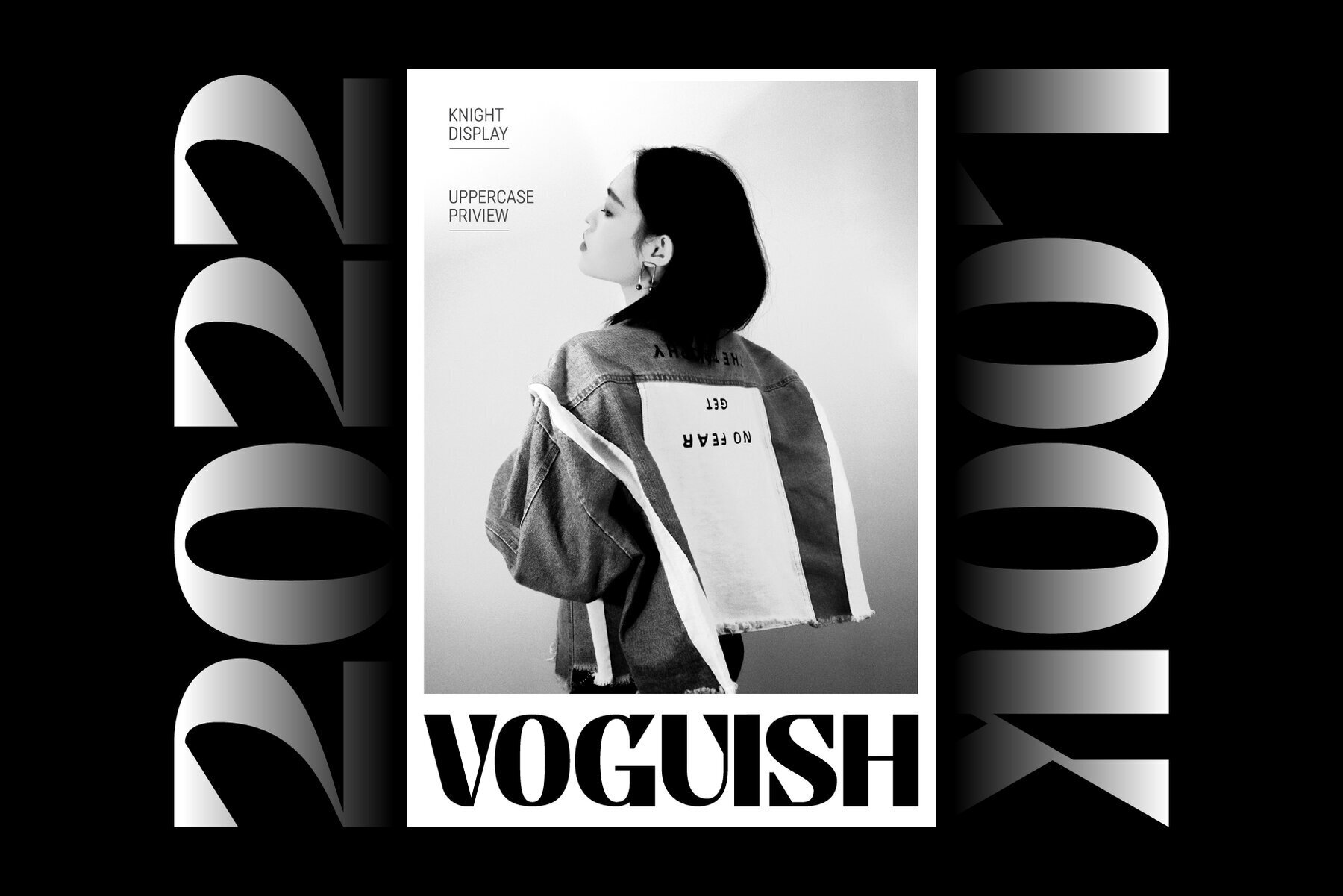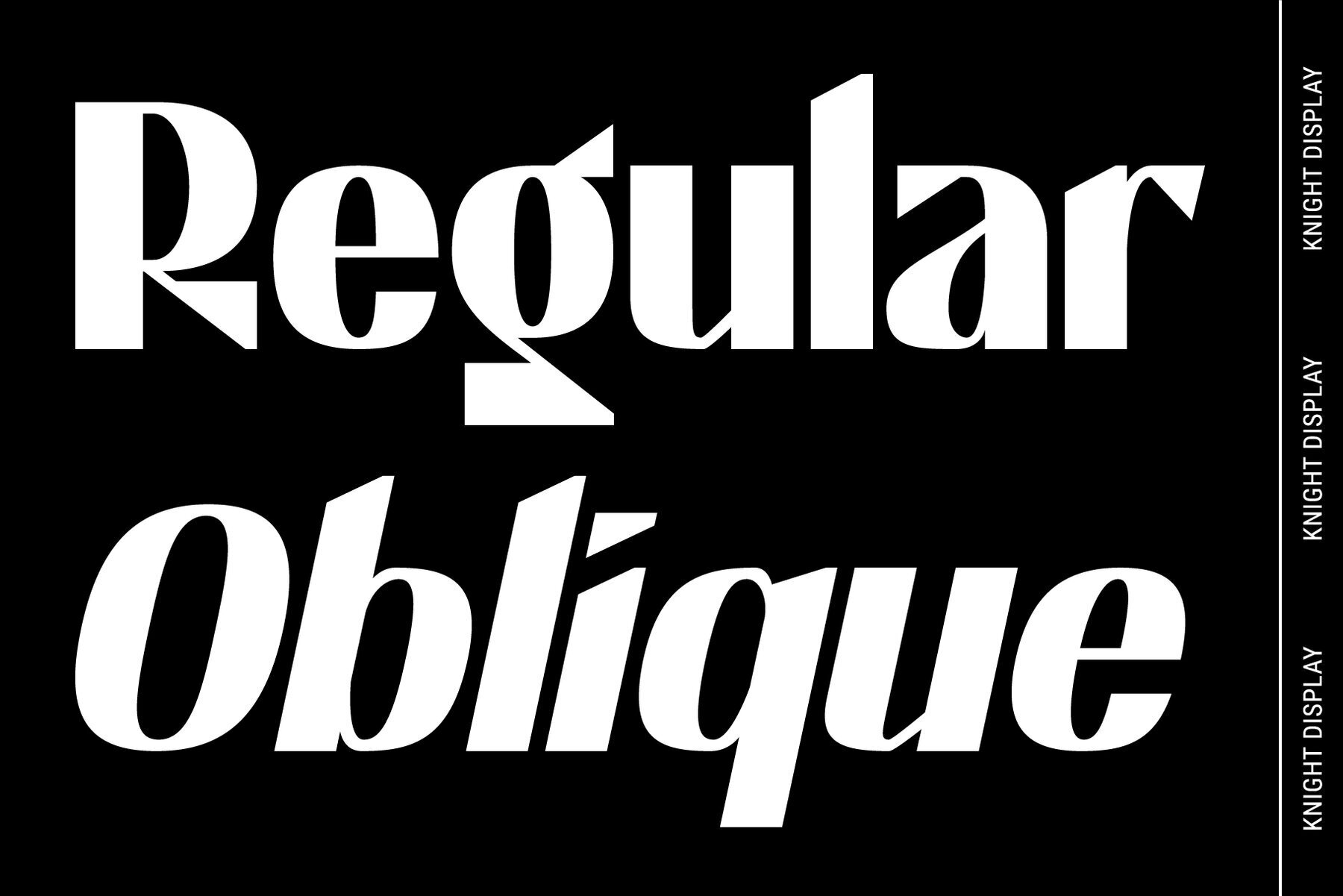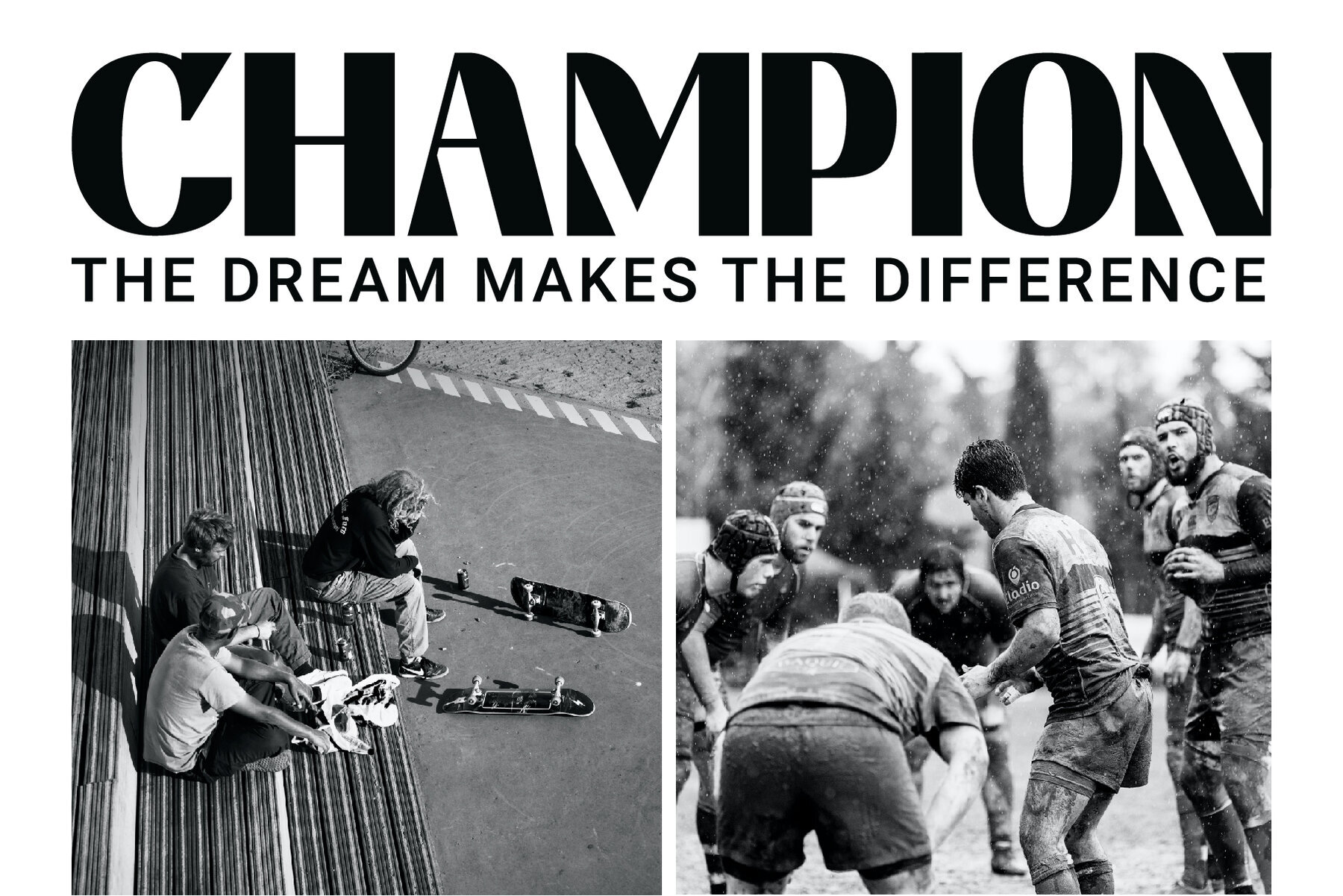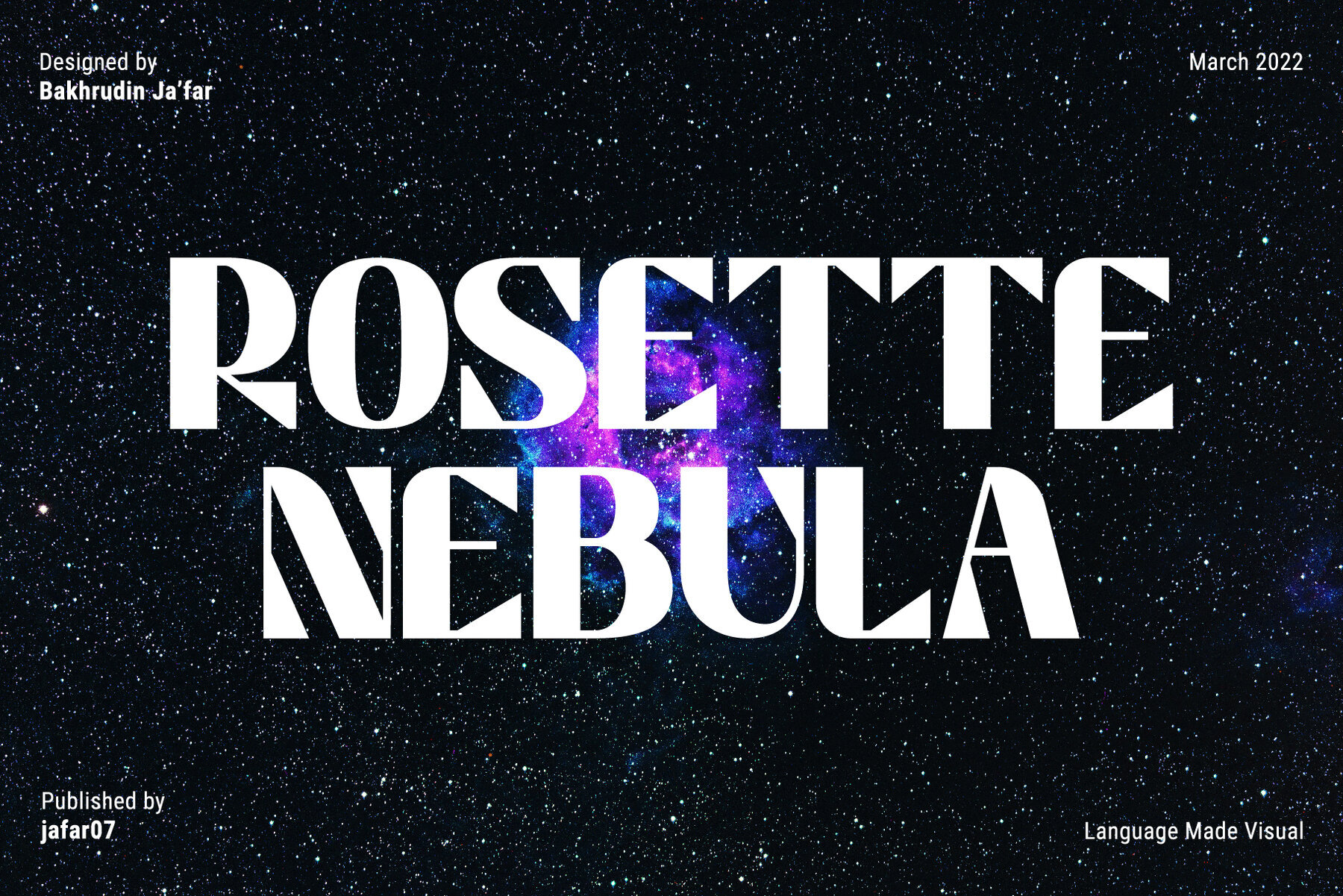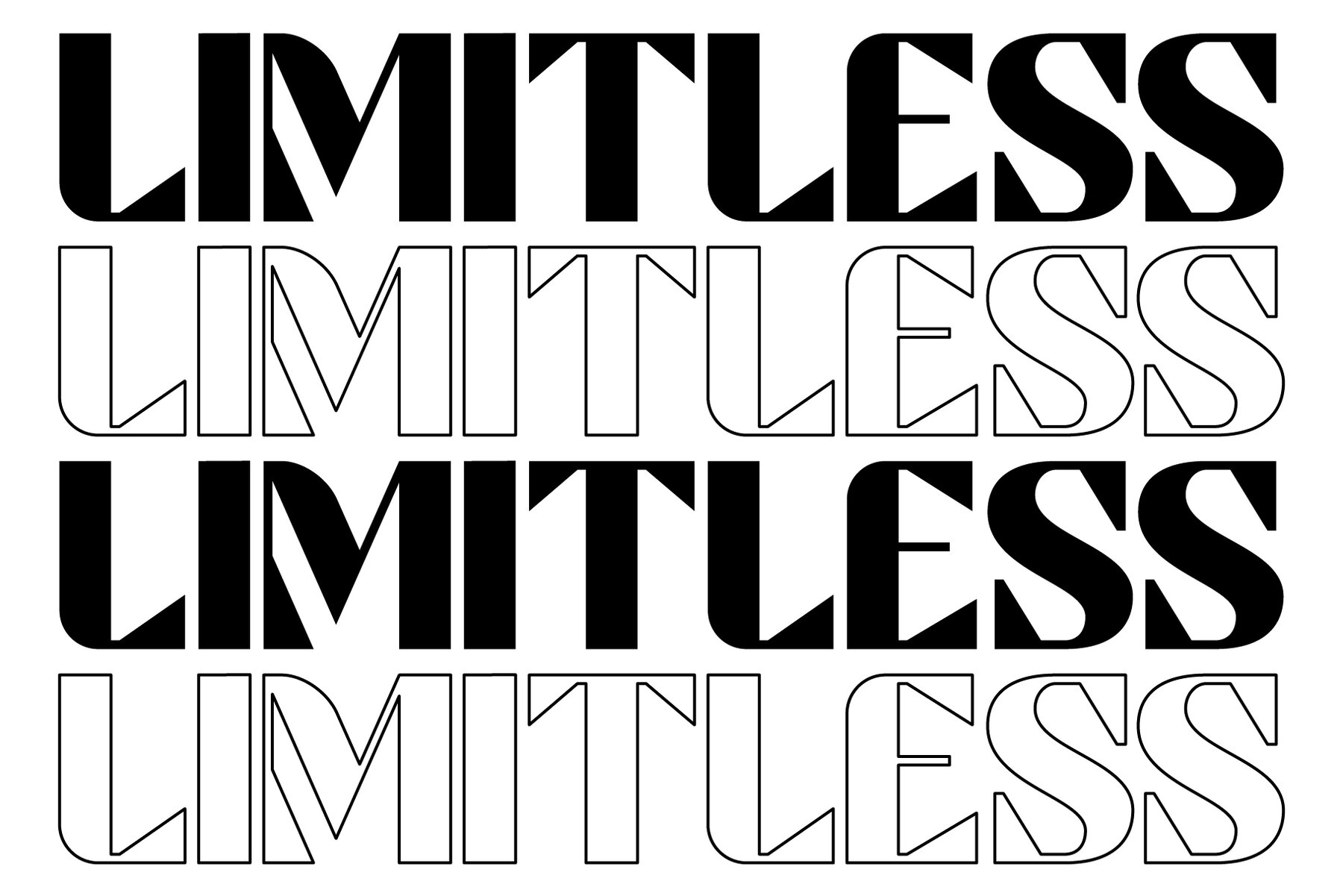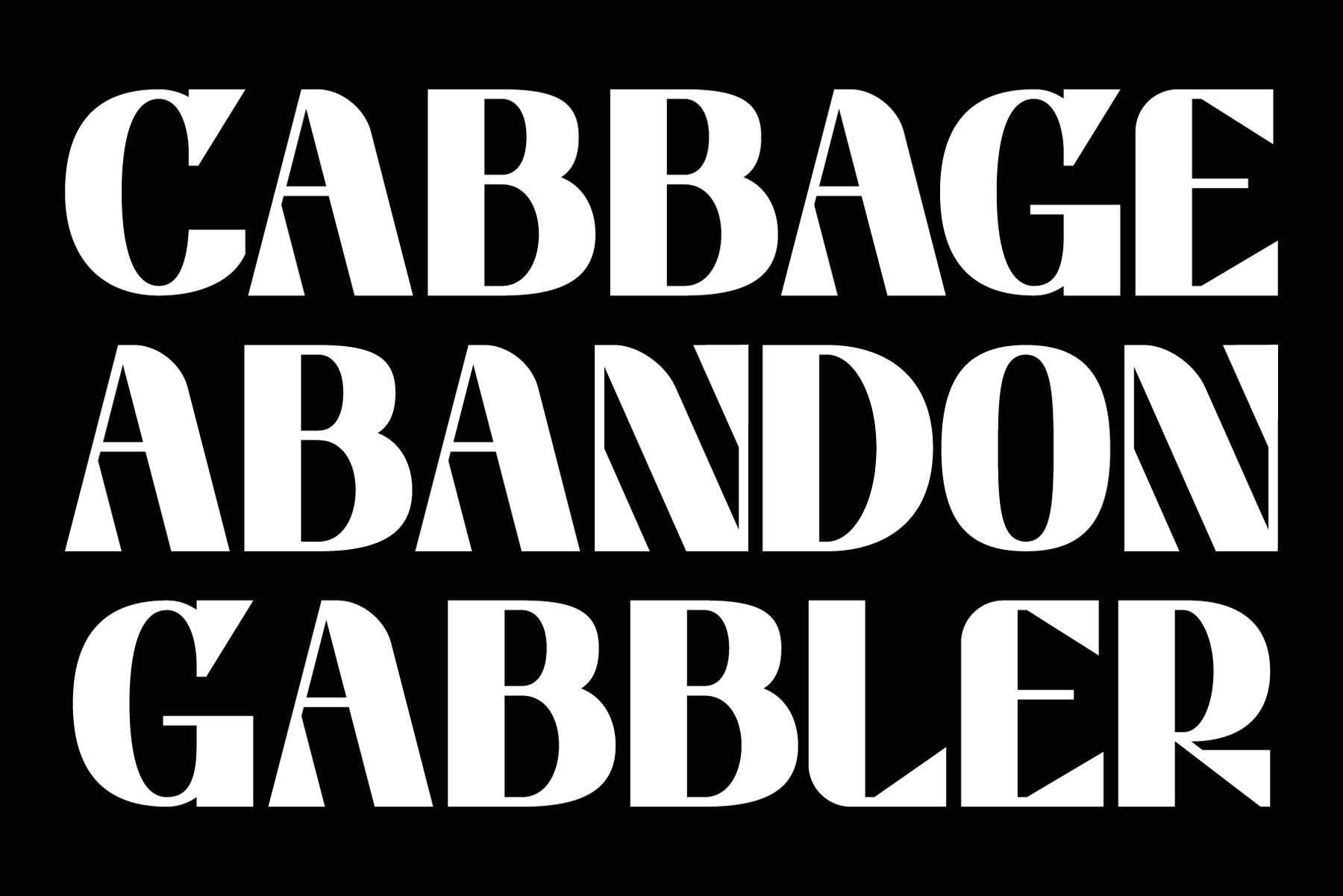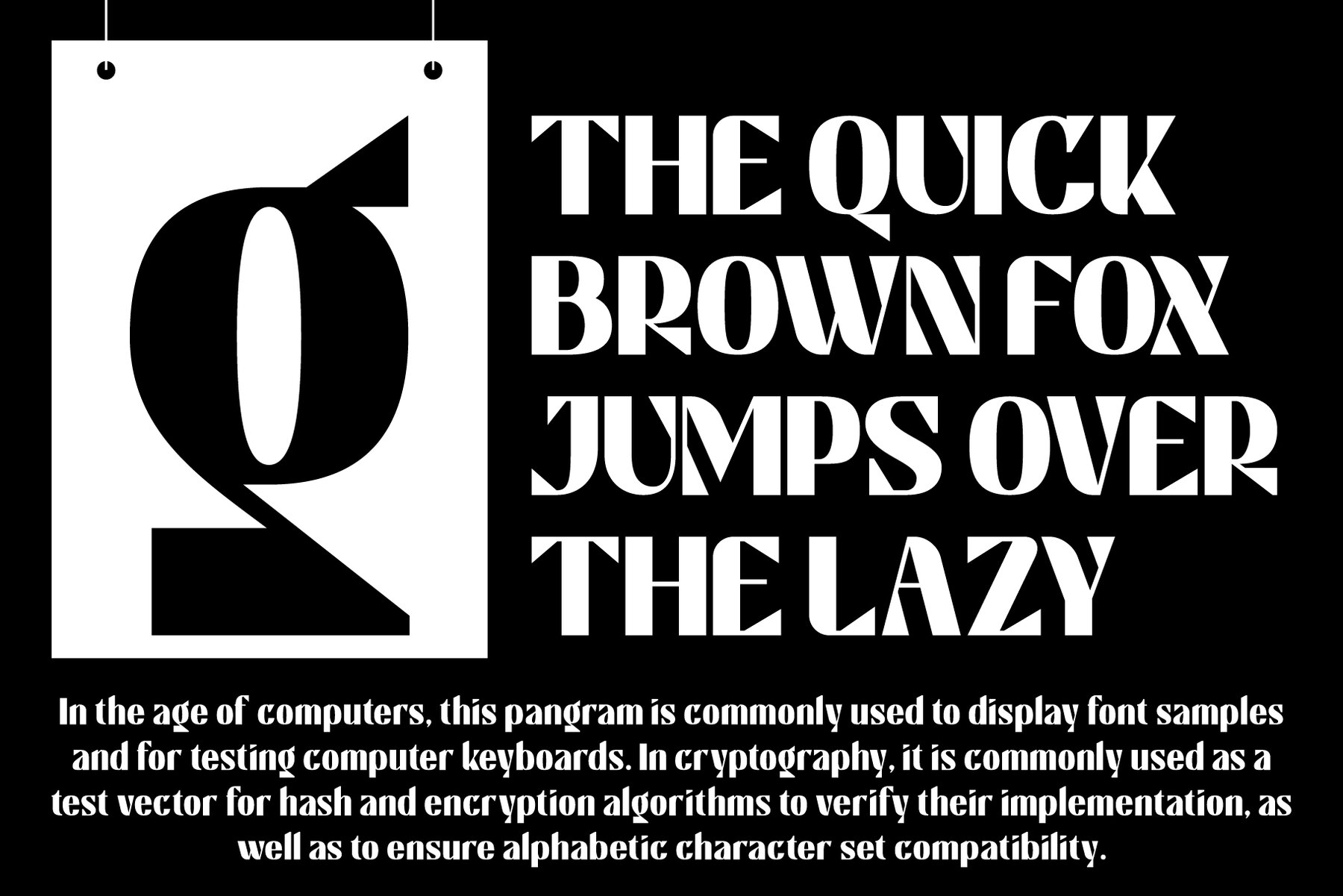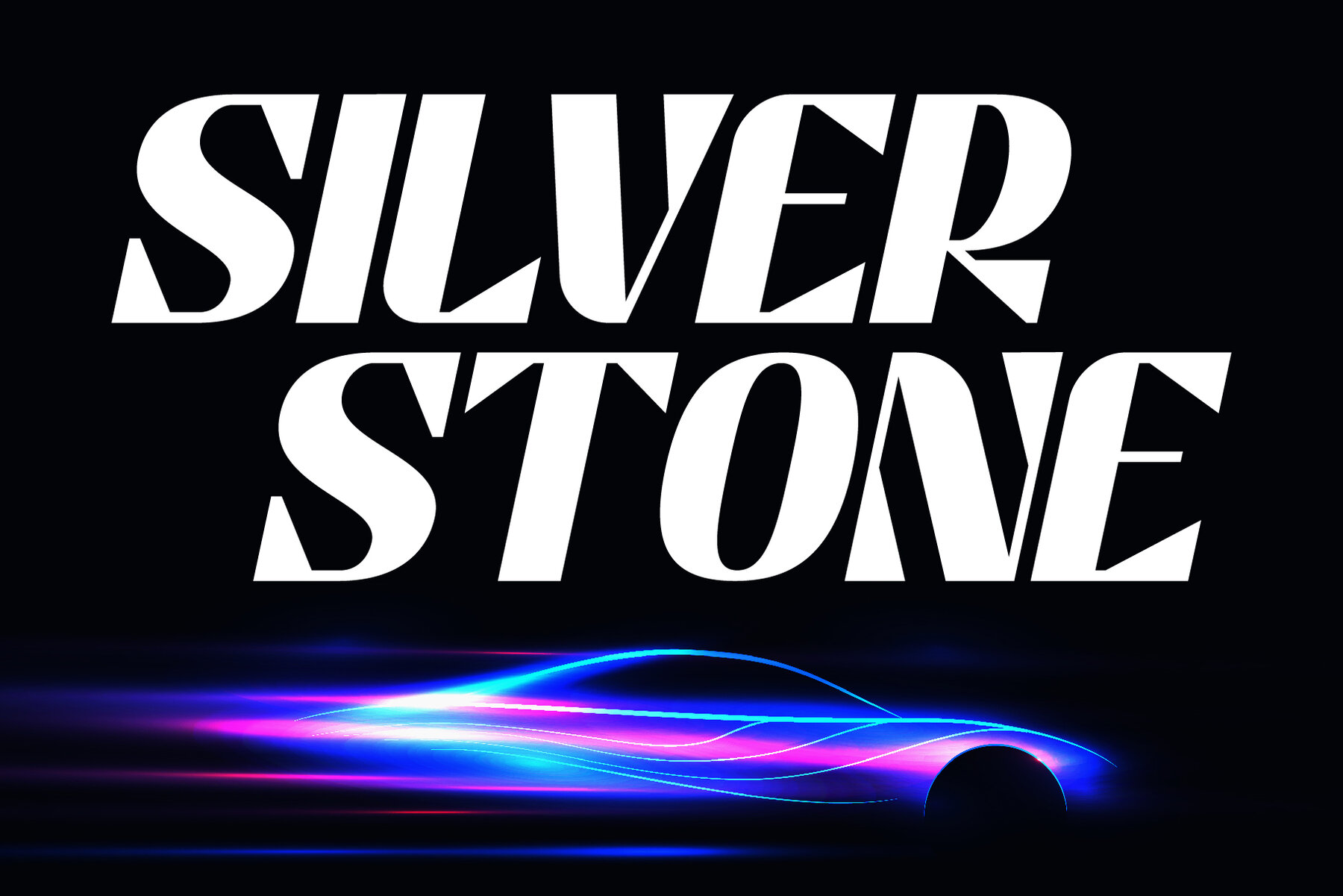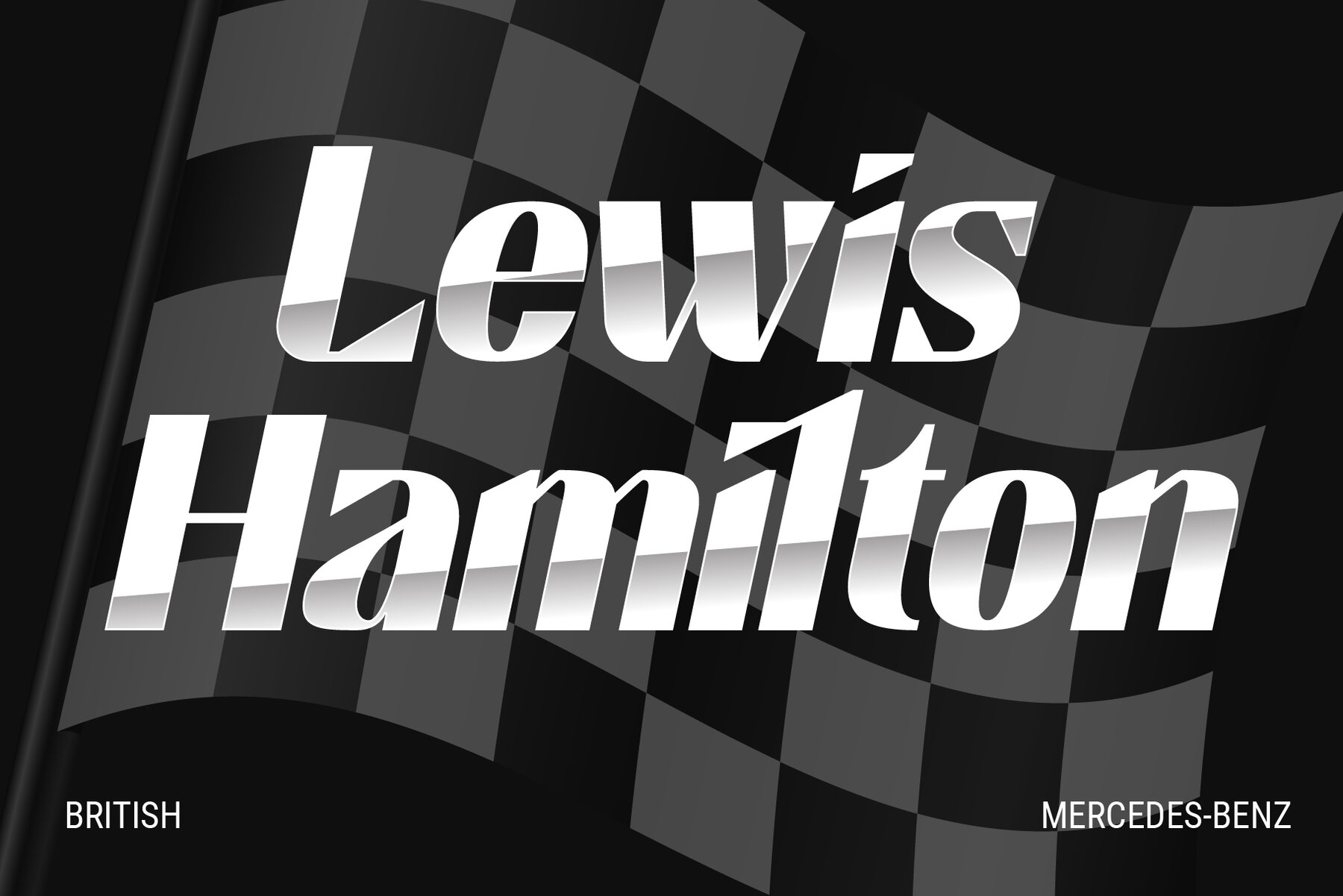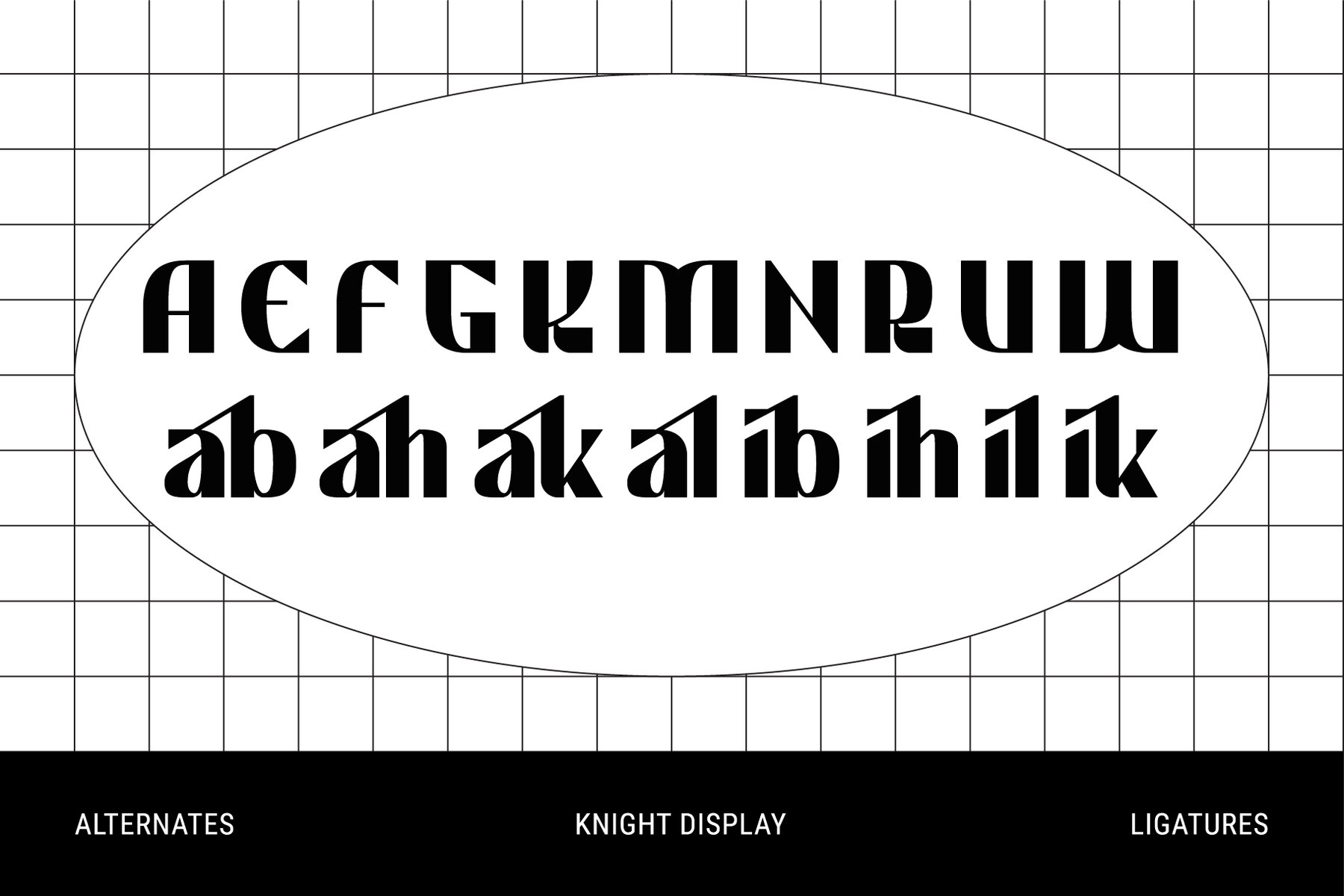
Knight Font
Knight Display was designed to be inspired by the knight himself, who was a strong, wise, and the fastest horseman, that's why this font is made in two versions Regular and Oblique, and also has several alternative characters and ligatures for those of you who want a unique touch of these fonts.